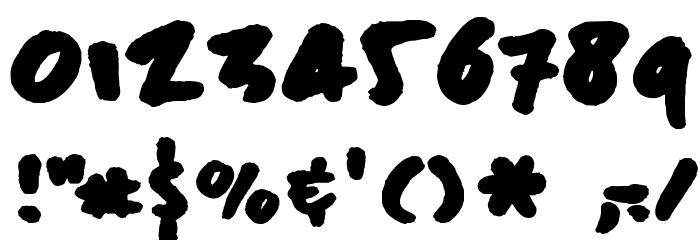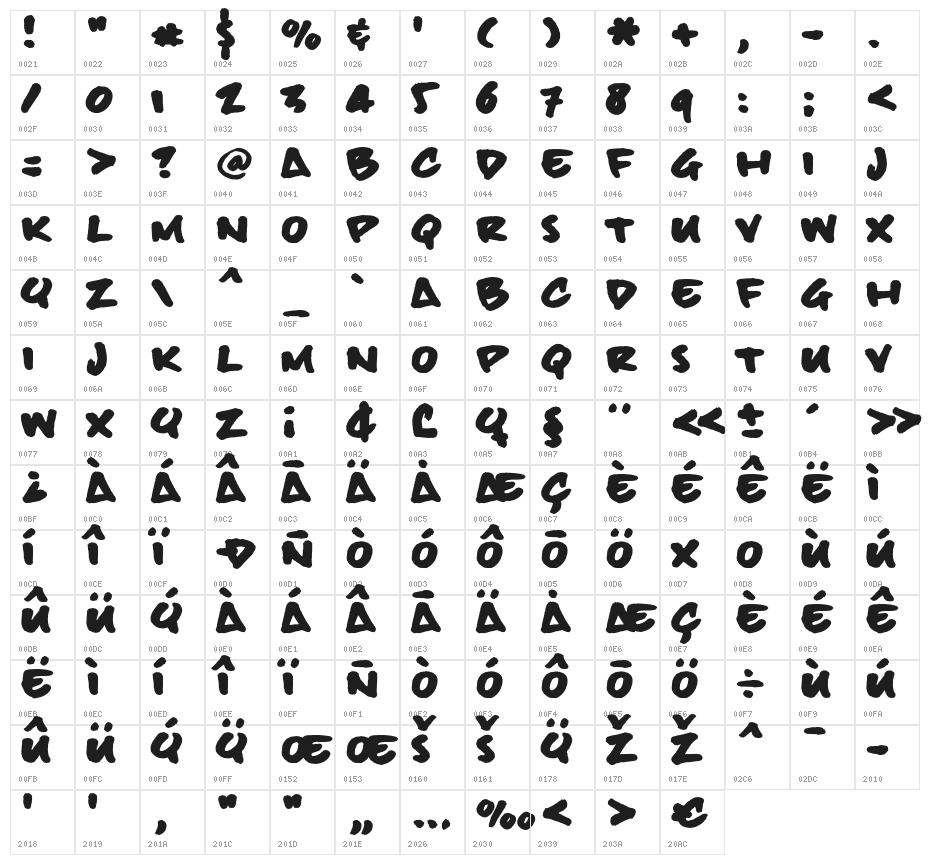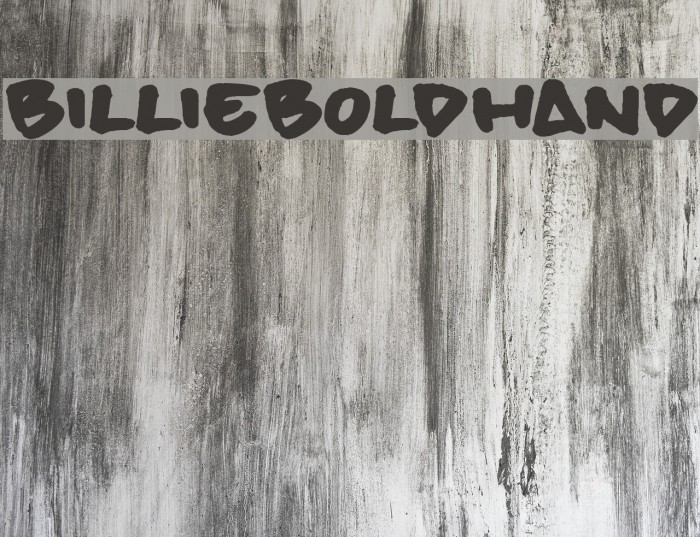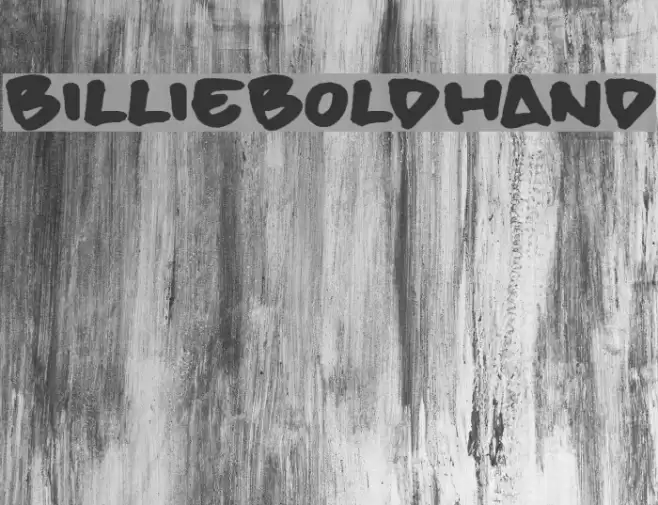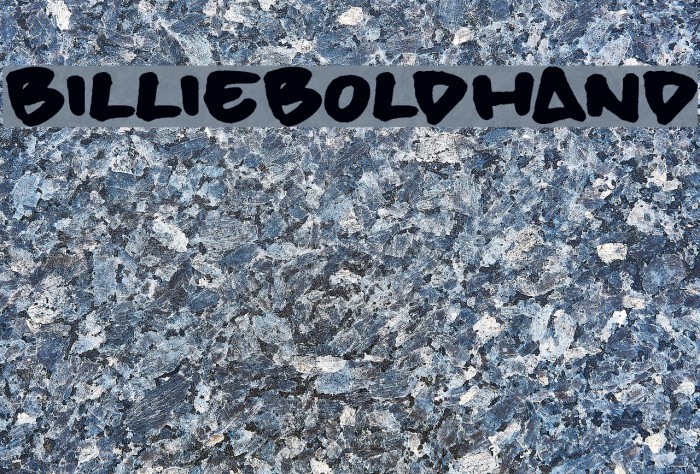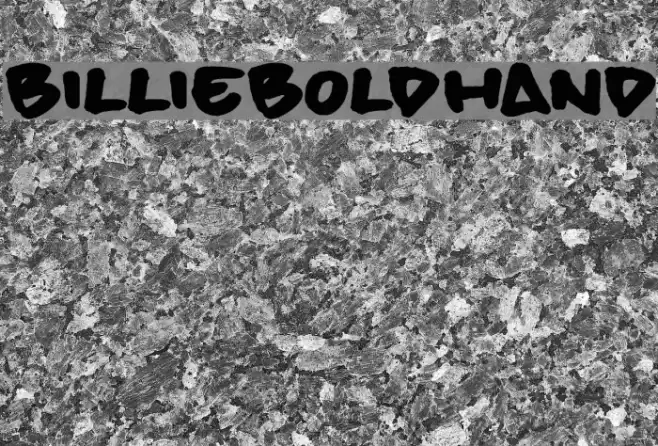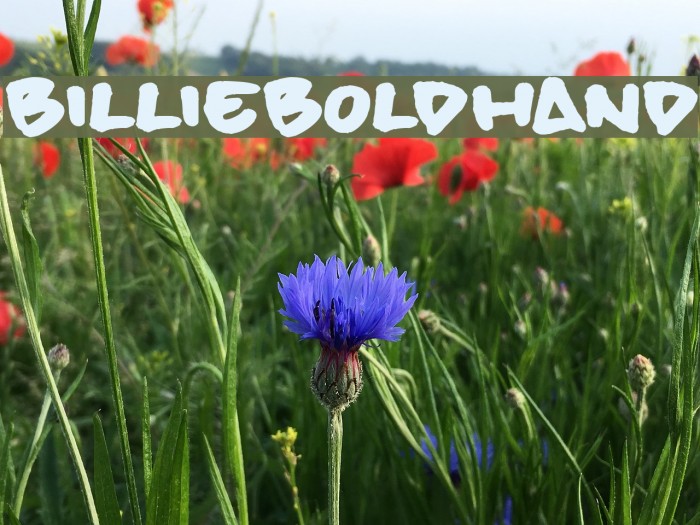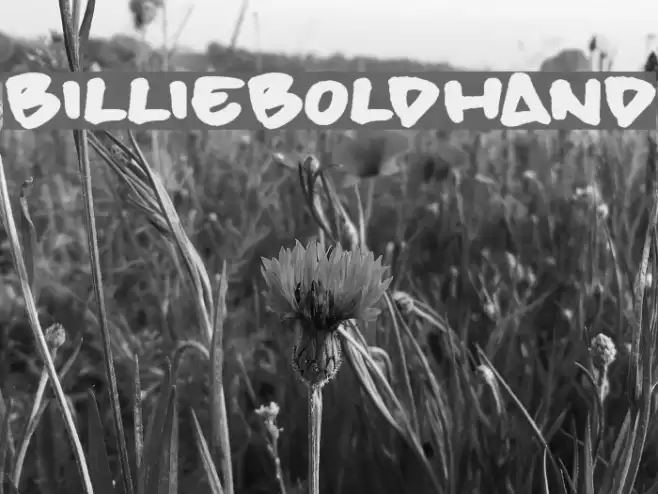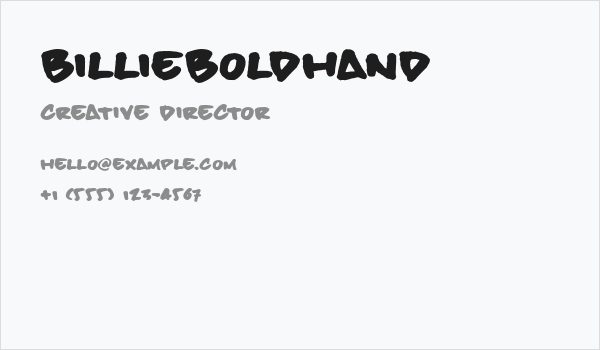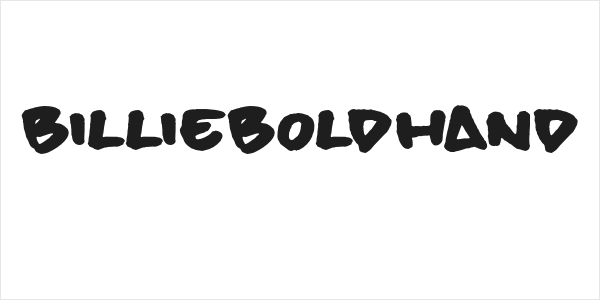
BillieBoldHand Font
BillieBoldHand Description
This font exudes a bold and expressive handwritten style, characterized by thick, dynamic strokes that convey a sense of energy and spontaneity. The letters are slightly irregular, adding a personal and authentic touch, reminiscent of a bold marker or brush pen. The uppercase and lowercase letters maintain a consistent weight, ensuring readability while preserving the font's unique character. The numbers and special characters are equally bold, integrating seamlessly with the alphabetic characters. This font's playful yet assertive appearance makes it suitable for projects that require a personal, informal touch.
| Proposed Projects | Ideal for greeting cards, posters, branding projects, and social media graphics where a personal and energetic touch is desired. |